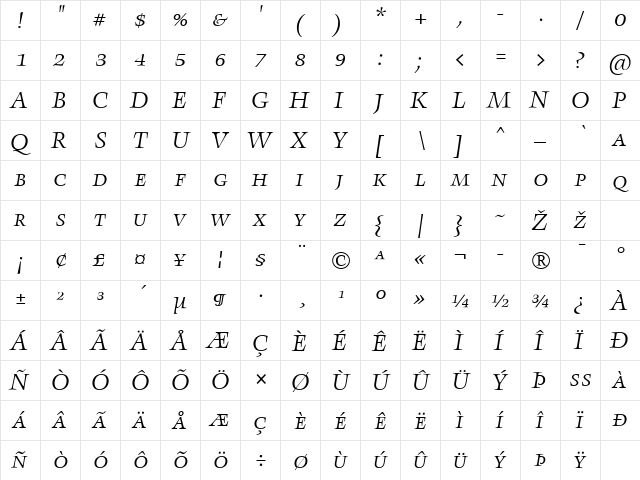
AngkoonTF-RegularItalicSC Regular Font Preview
AngkoonTF-RegularItalicSC Regular
AngkoonTF-RegularItalicSC Regular Font Details
Design Context for AngkoonTF-RegularItalicSC Typeface
AngkoonTF-RegularItalicSC is a composed and adaptable typeface that performs quietly and consistently across a wide range of design contexts. The dynamic lean of this cut emphasises speed and emphasis in any layout.
Pro Tip: Try AngkoonTF-RegularItalicSC for annotation and caption copy alongside an upright companion — the contrast in angle creates a dynamic but ordered typographic system.